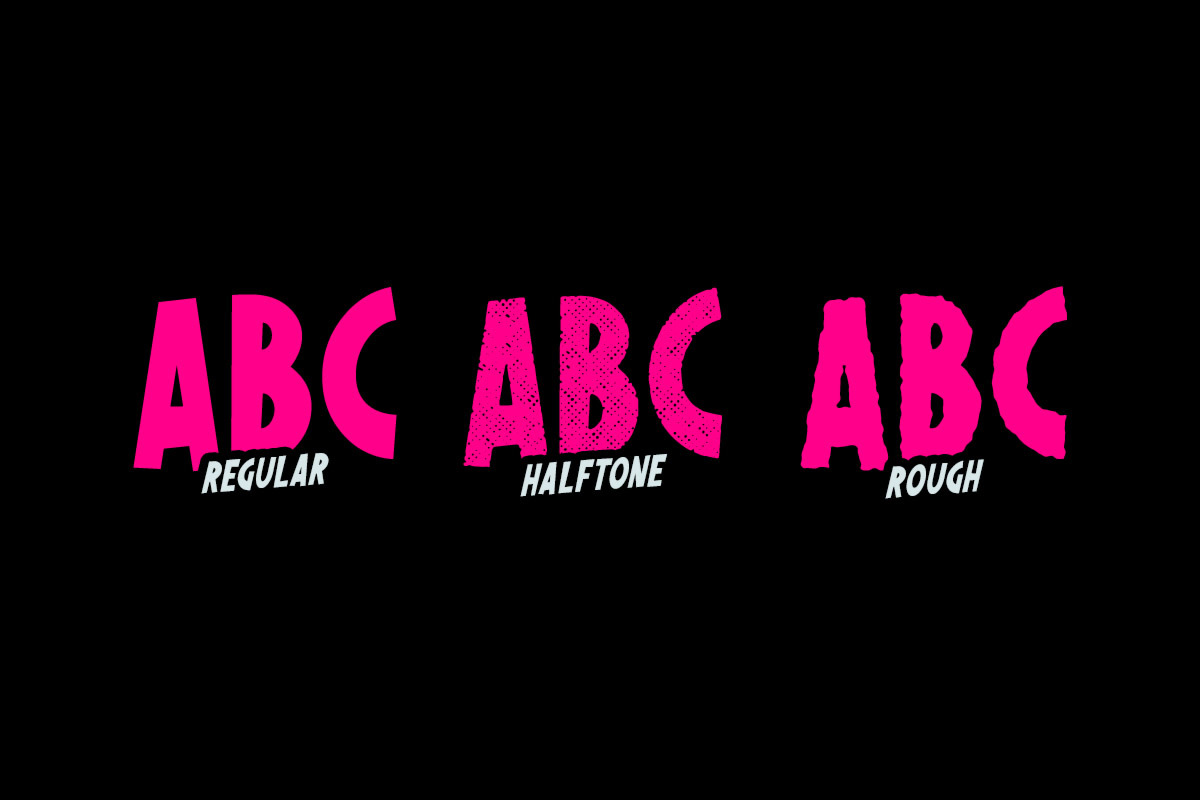
Nikopol Typeface
Nikopol Typeface by Tugcu Design Co. is a font selected for branding, posters, packaging, typography.
- It includes uppercase multilingual letters, punctuation and numbers.
- The letters "i" and "m" also have alternate versions which you can toggle with caps lock.
- Nikopol Regular
- Nikopol Halftone
- Nikopol Rough
Why Nikopol Typeface is worth a look
Nikopol Typeface by Tugcu Design Co. fits naturally into Branding, posters, packaging, typography.